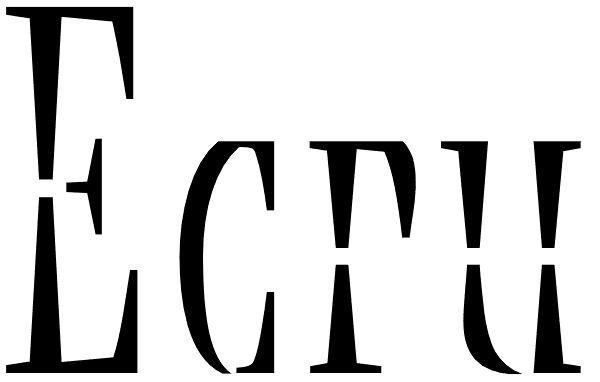
Ecru
Ecru is based on four unique capitals designed by Los Angeles graphic artist Margo Chase for a single use. Richard Lipton examined these four letters: E, C, R, and U. To his designer’s eye they implied a complete typeface, so he expanded them to a...